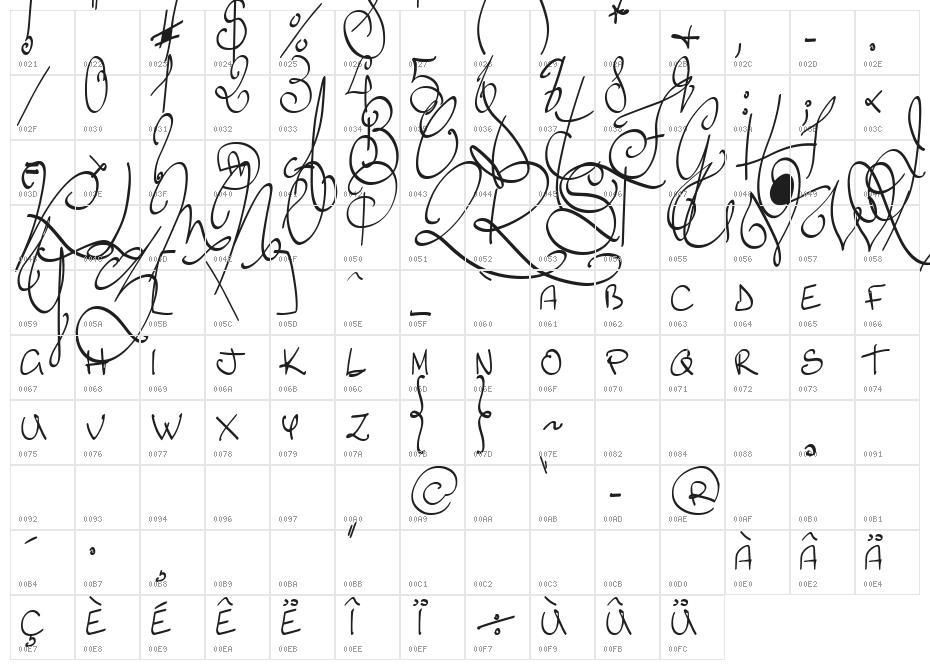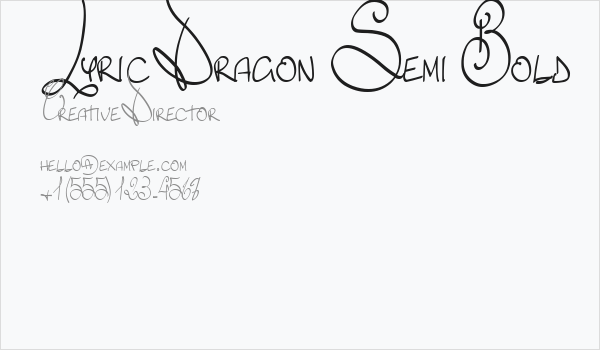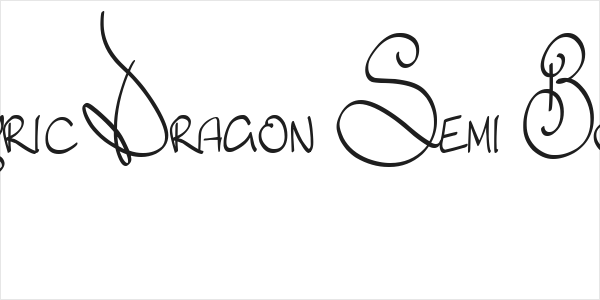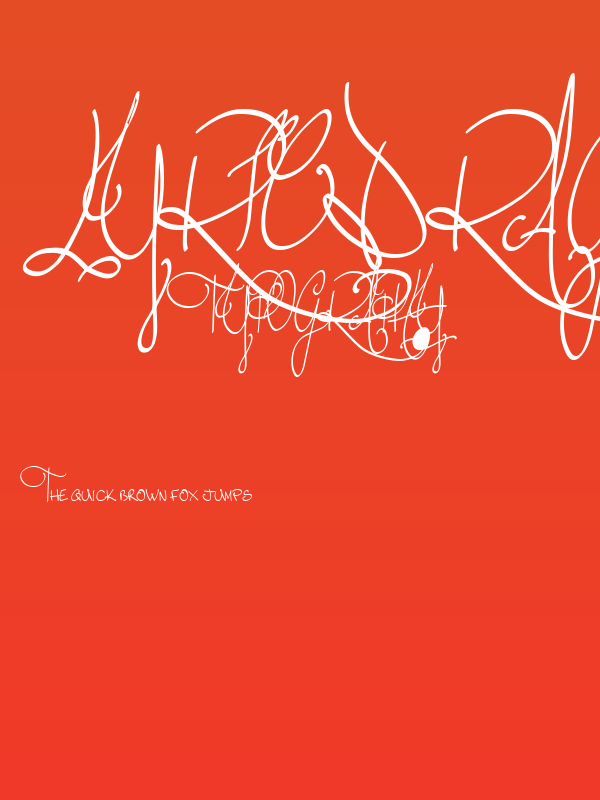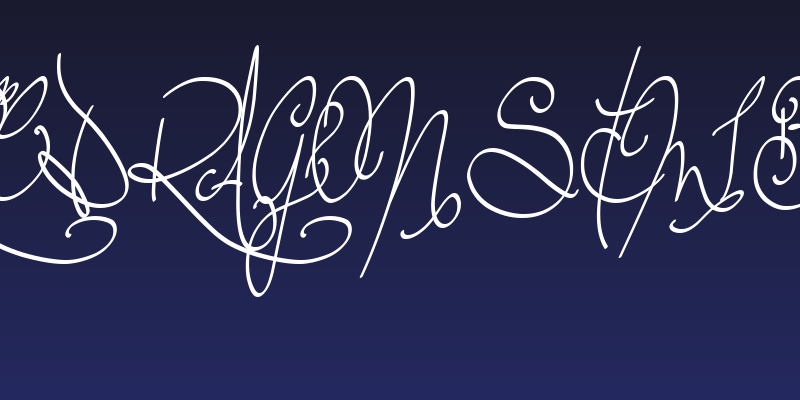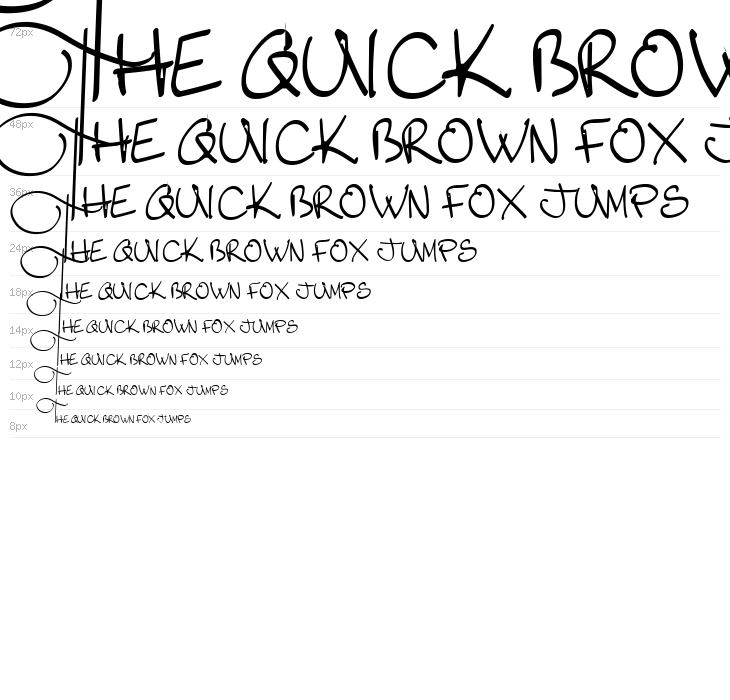
Lyric Dragon Semi Bold Font
Lyric Dragon Semi Bold Description
This font features a dynamic and expressive style, combining elements of both script and display typography. The uppercase letters are characterized by intricate loops and flourishes, creating a sense of movement and elegance. The lowercase letters maintain a more straightforward, yet still playful, appearance with a slightly irregular baseline that adds to its charm. The numerals and special characters continue this theme, with unique and artistic interpretations that make them stand out. Overall, this font exudes a sense of creativity and individuality, making it ideal for projects that require a personal touch.
| Use Case | Logos, Invitations, Posters |
| Proposed Projects | Ideal for wedding invitations, artistic branding, creative posters, and any project requiring a personal, artistic touch. |